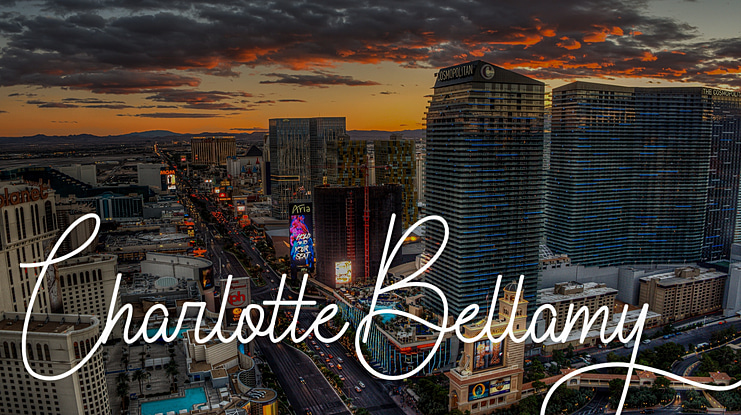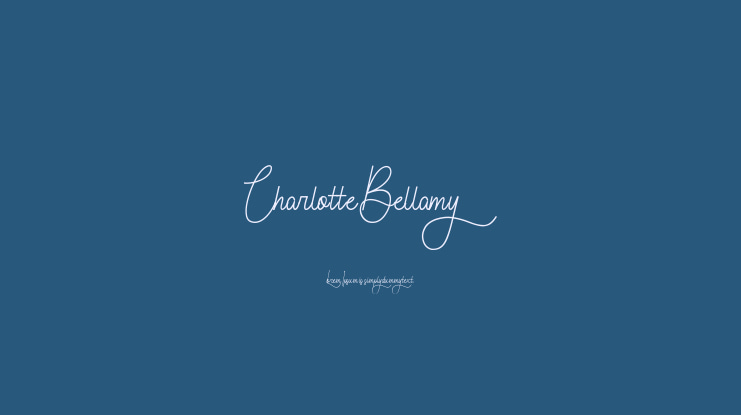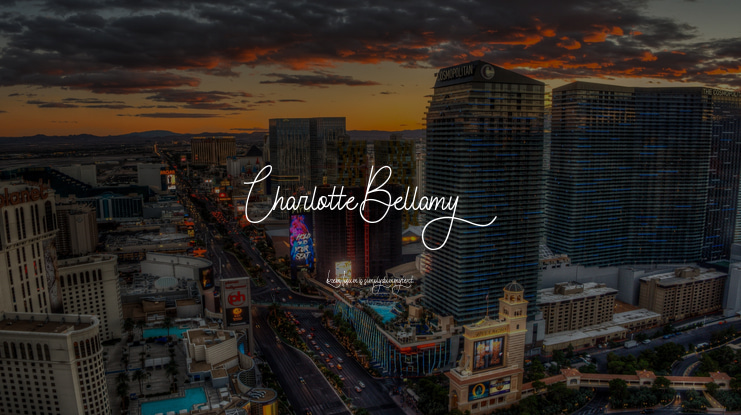
Charlotte Bellamy Font
Charlotte Bellamy is a beautiful monoline font, perfect for logo design, branding, clothing design, signage, posters, wedding invitations and so much more! This font retains a uniquely personal approach within each character.